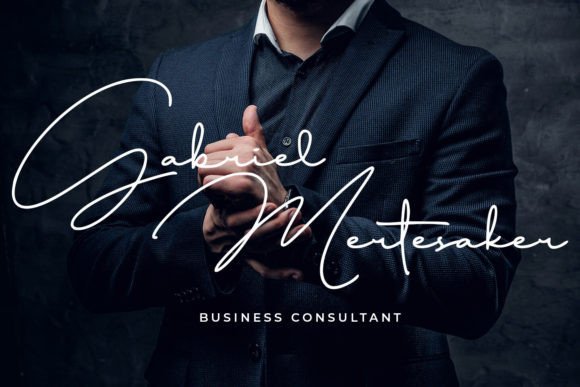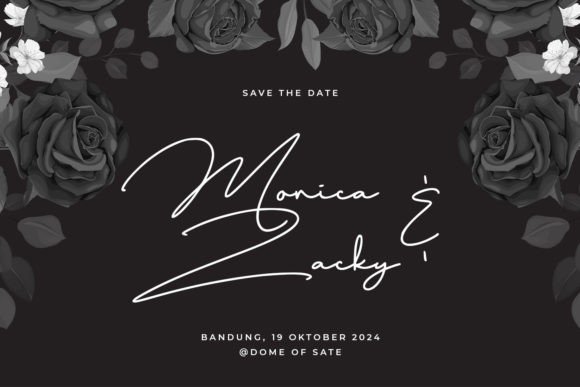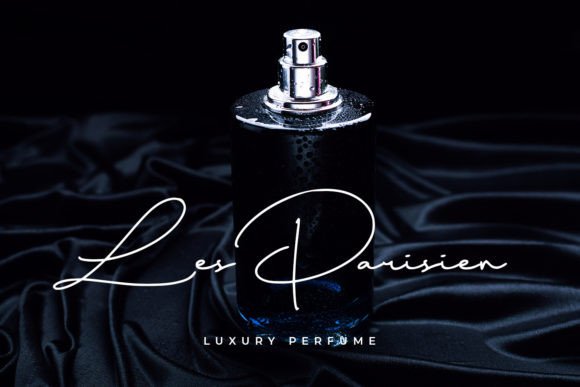
Jackson Signature Font
JACKSON SIGNATURE
– classic signature font-
JACKSON SIGNATURE is a beautiful monoline signature font.
It is great for branding, quotes, logotypes, t-shirt designs, tote bag designs, cards, banners, social media, and more.